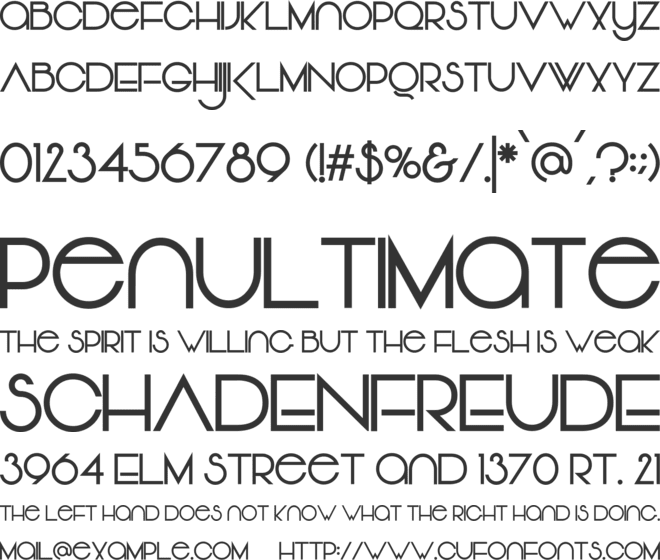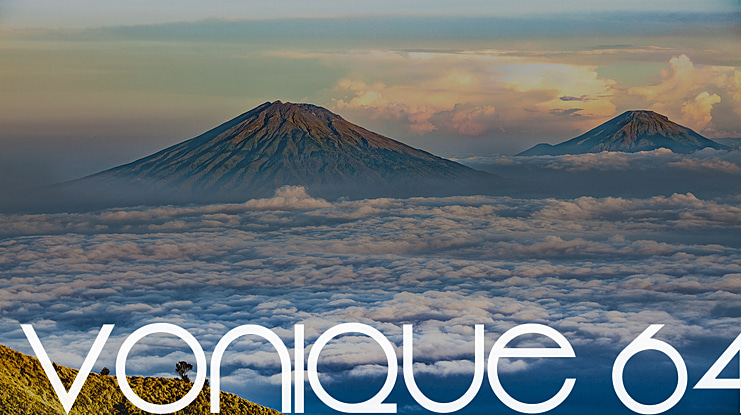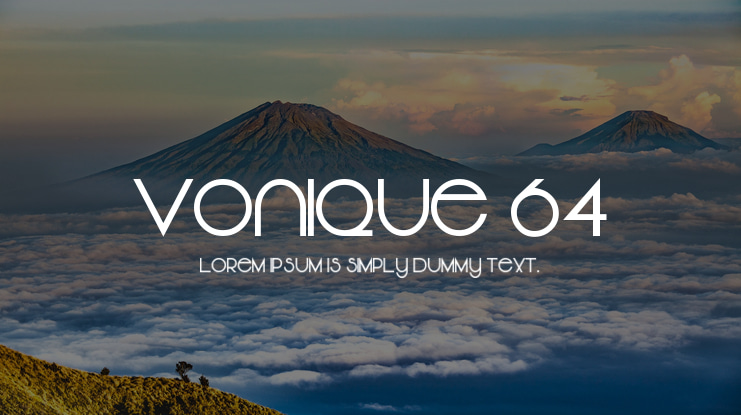
Vonique 64 Font Family
Hey Everybody. Meet Vonique 64. My inspiration came from walking around New York's 5th Ave., the Champs-Élysées in Paris,and Oxford Street in London. Think black and white perfume ads behind
glass. The smell of roasted beans trickling out of that upscale coffee shop. The ornate lamp post. You've got the idea! Vonique 64 is sophisticated, urban, and curvy but tries not to take itself
too seriously. This font family comes in 4 different weights: regular, italic, bold, and bold italic. Feel free to redistribute as long as this readme file stays intact. This font is free for